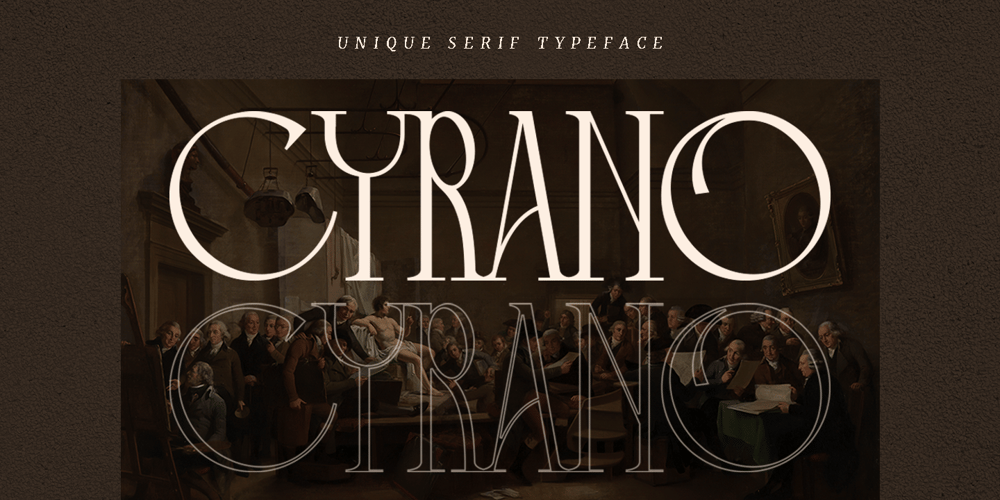
Cyrano
Cyrano font
Cyrano Font Family was designed by Ahmad Jamaludin and published by Ahmad Jamaludin. Cyrano contains 1 styles and family package options. Present to you for New Unique Serif, Cyrano!Cyrano is unique serif font, every single letters have been carefully crafted to make your text looks fashionable and european style.This font is specially designed for fashion-themed projects, perfectly suitable for creating elegant, chic, lifestyle design such as logos, title, magazine and more.Cyrano has a lowercase that is uppercase letter and the uppercase is alternate, so you can change the alternative by just replacing it with uppercase, it’s very easy right?What you get Letters, numbers, punctuation, multilingual support, and ligature Access alternate guide Follow my shop for upcoming updates including additional glyphs and language support.Happy Creating!Dharmas Studio